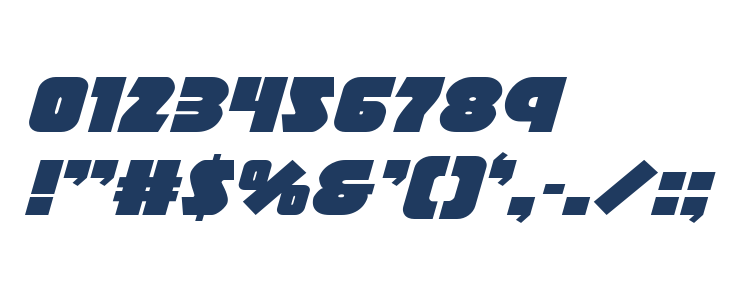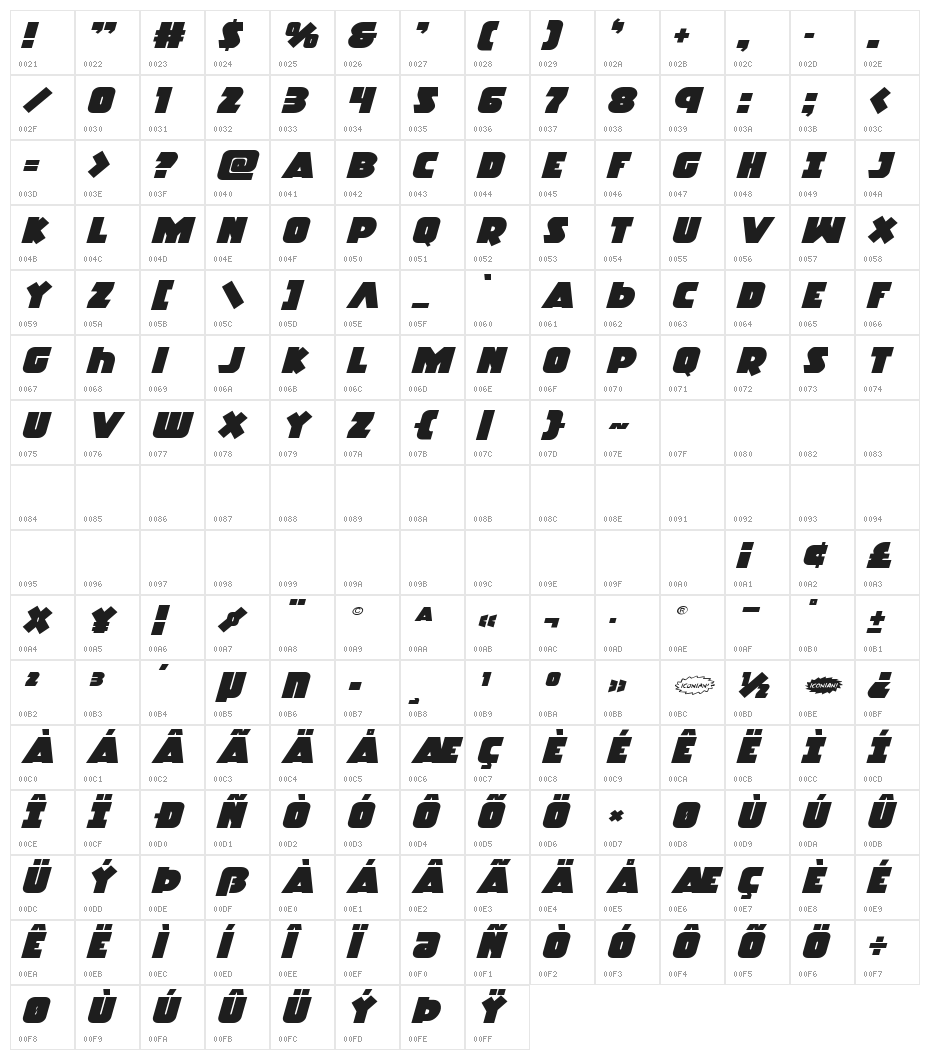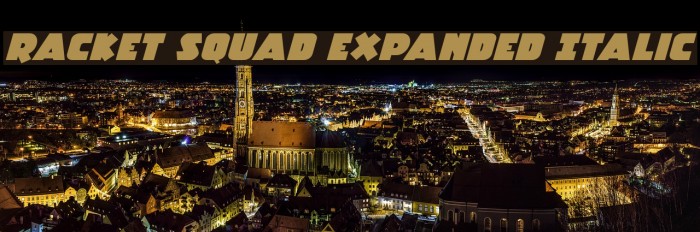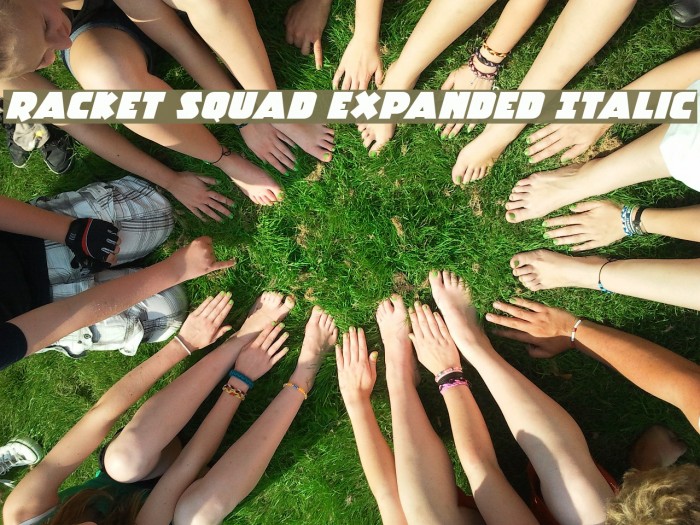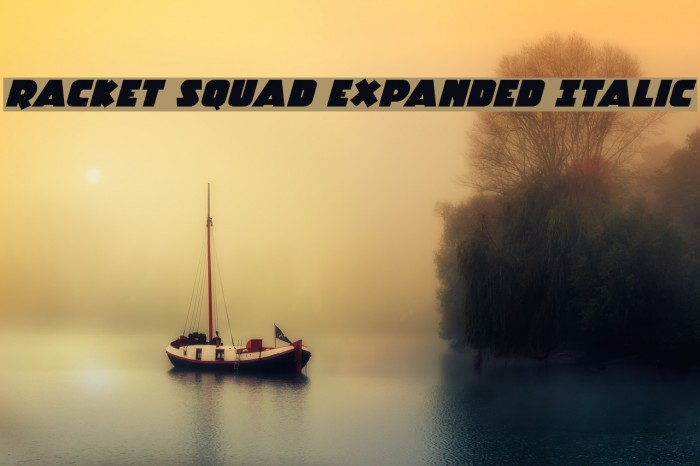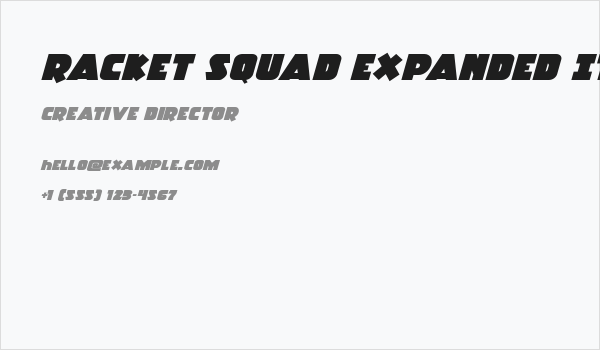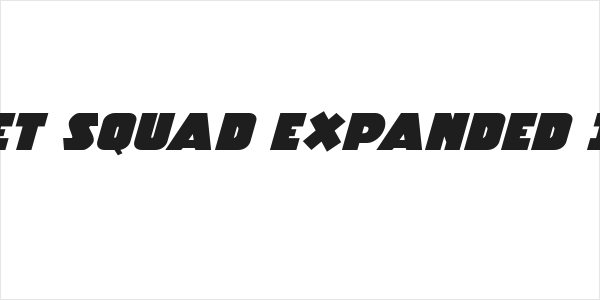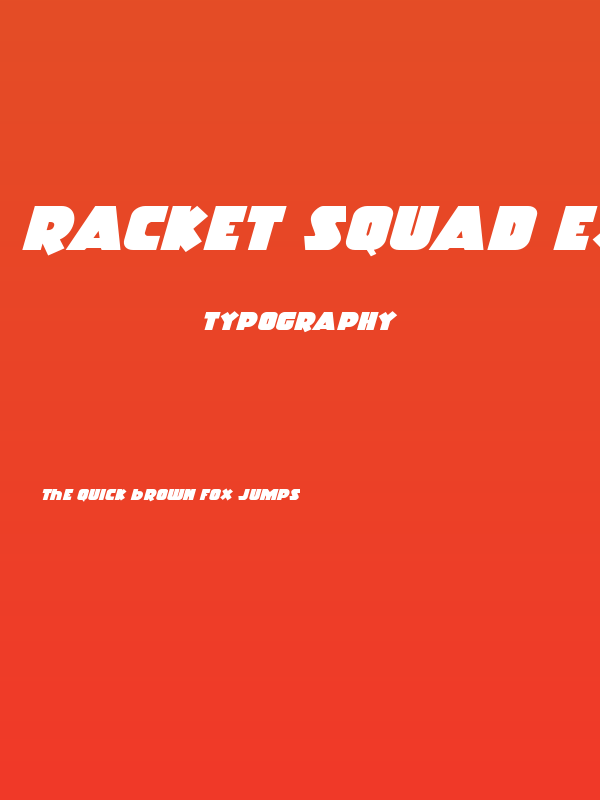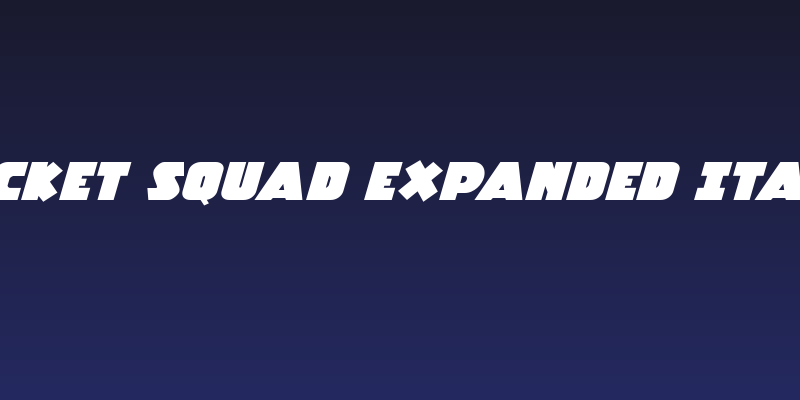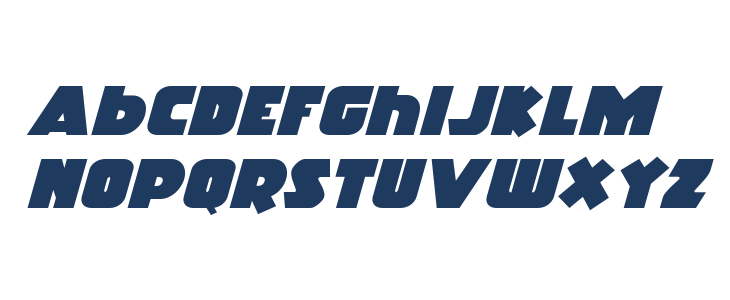
Racket Squad Expanded Italic Font
Racket Squad Expanded Italic Description
This font features a bold and dynamic style with a distinct italic slant, giving it a sense of motion and energy. The characters are heavily stylized with sharp angles and a blocky appearance, making them stand out prominently. The uppercase and lowercase letters maintain a consistent design, with the lowercase slightly smaller but equally bold. Numbers and special characters follow the same stylistic cues, ensuring uniformity across all glyphs. The font's expanded width adds to its commanding presence, making it ideal for attention-grabbing headlines or impactful designs.
| Proposed Projects | Ideal for sports branding, action movie posters, video game titles, or any project requiring a bold, energetic typeface. |